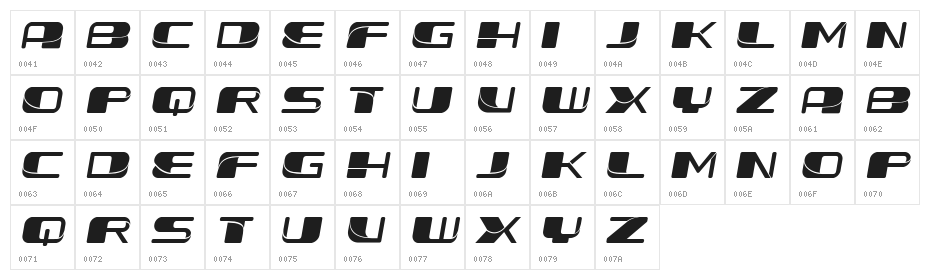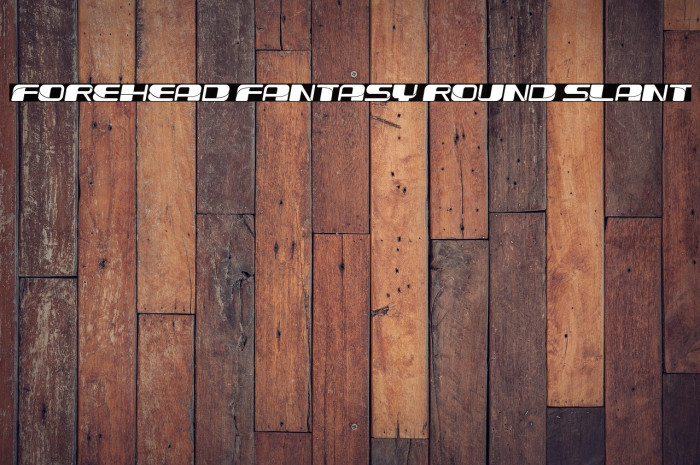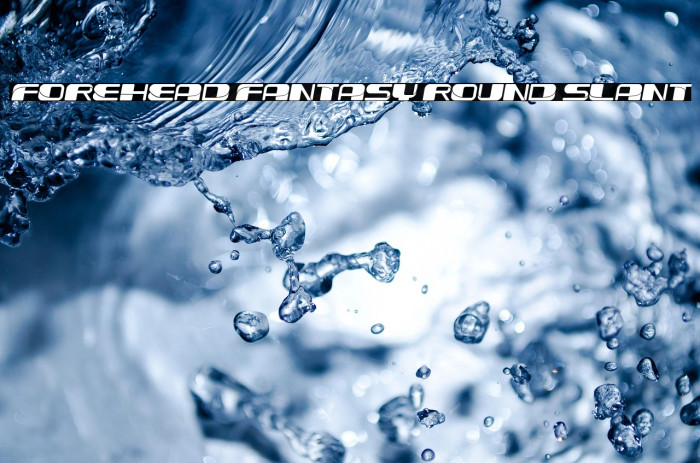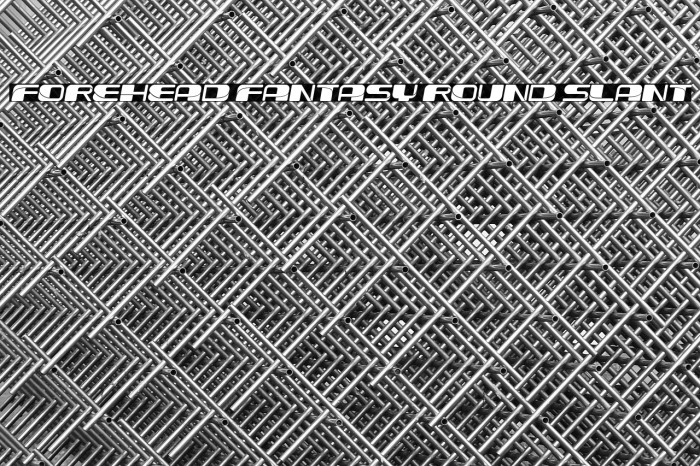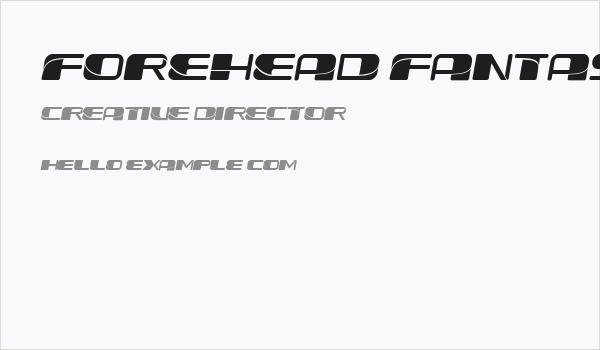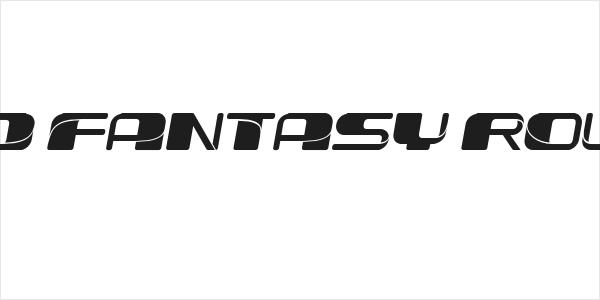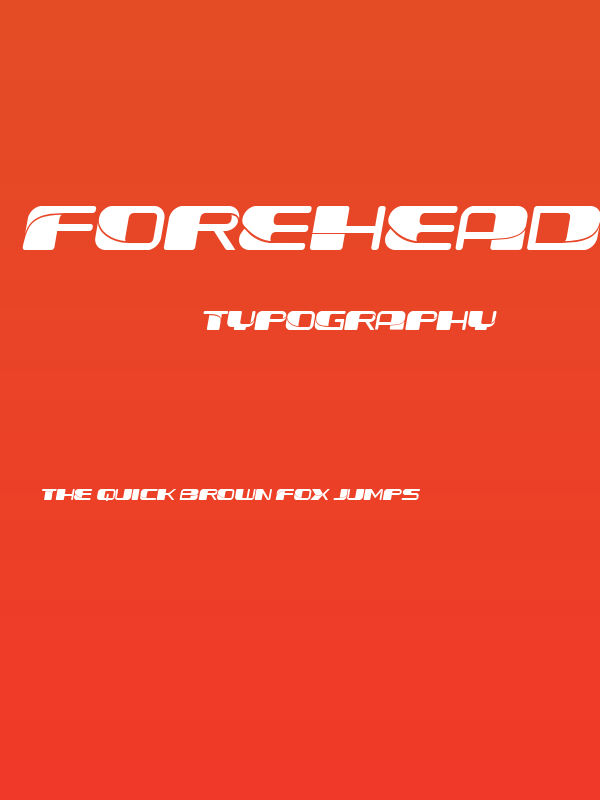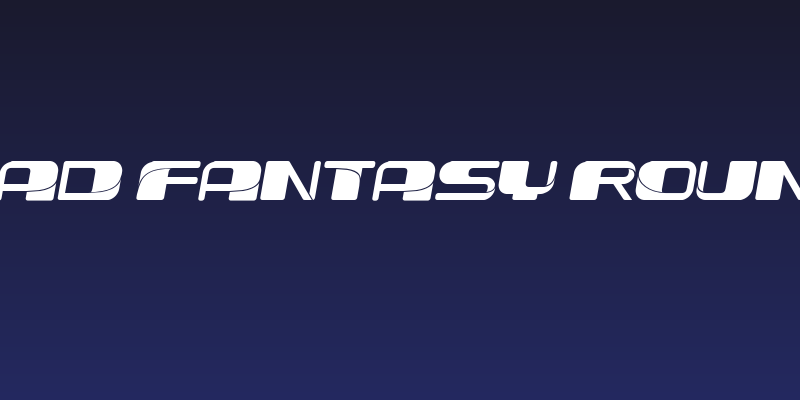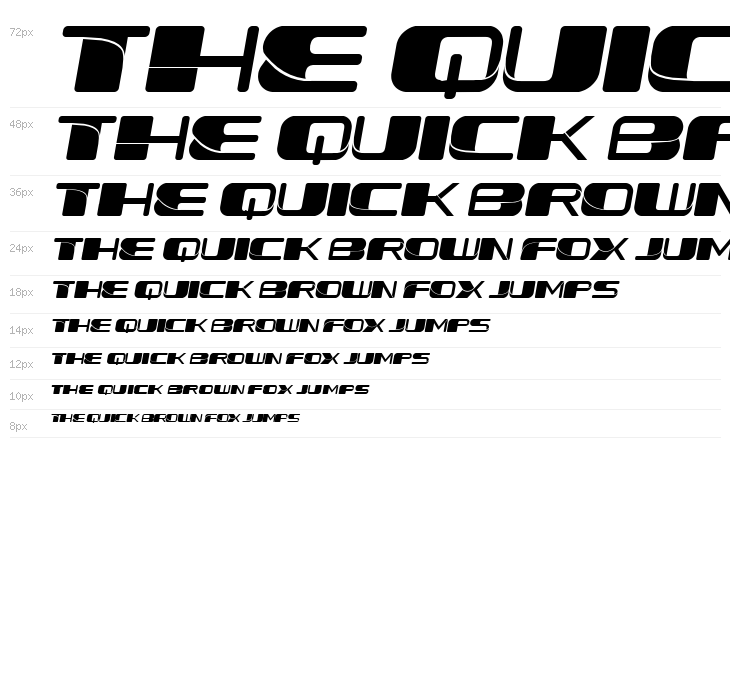
Forehead Fantasy Round Slant Font
Forehead Fantasy Round Slant Description
This font features a futuristic and dynamic design with a distinct slant, giving it a sense of motion and energy. The characters are bold and rounded, with a unique cutout style that adds a modern and edgy feel. The uppercase letters are particularly striking, with a consistent width and a sleek, aerodynamic appearance. The font's design is cohesive, with each letter seamlessly integrating into the overall style, making it ideal for projects that require a bold and contemporary look.
| Overall Style | Futuristic, Modern |
| Proposed Projects | Ideal for branding, sports team logos, technology-themed designs, and futuristic posters. |